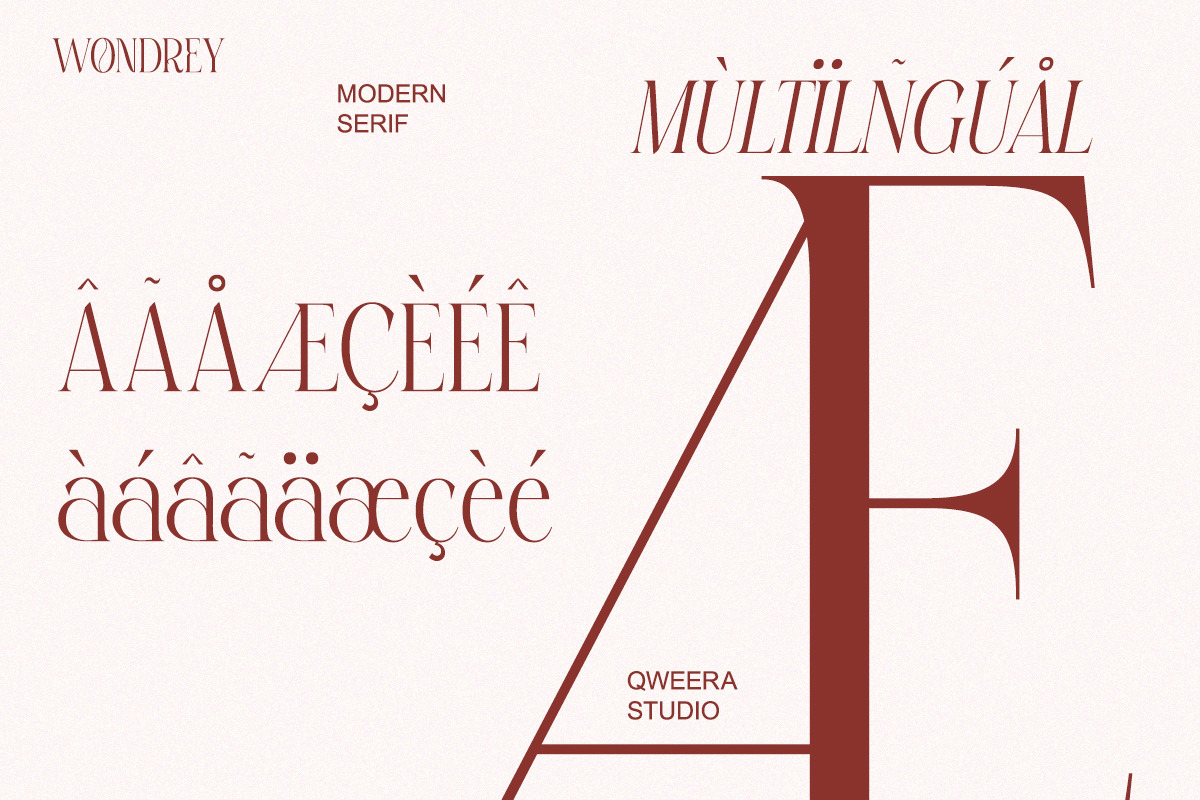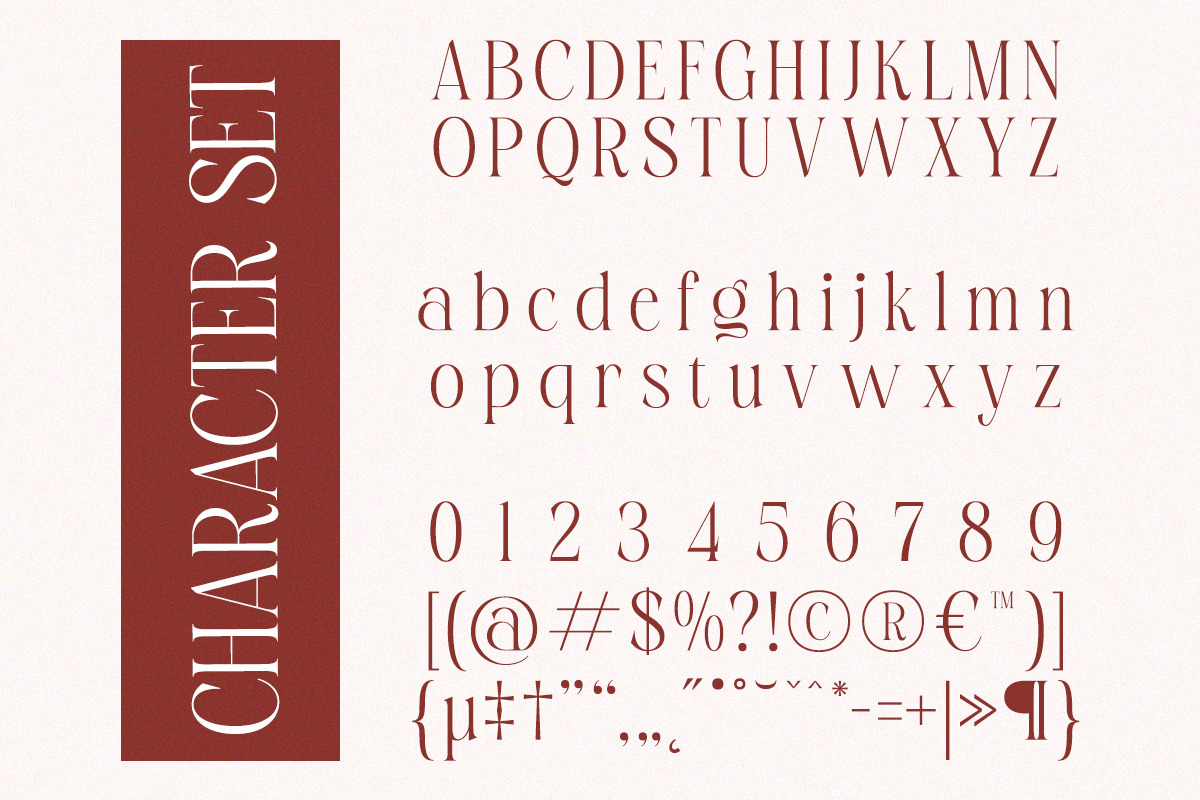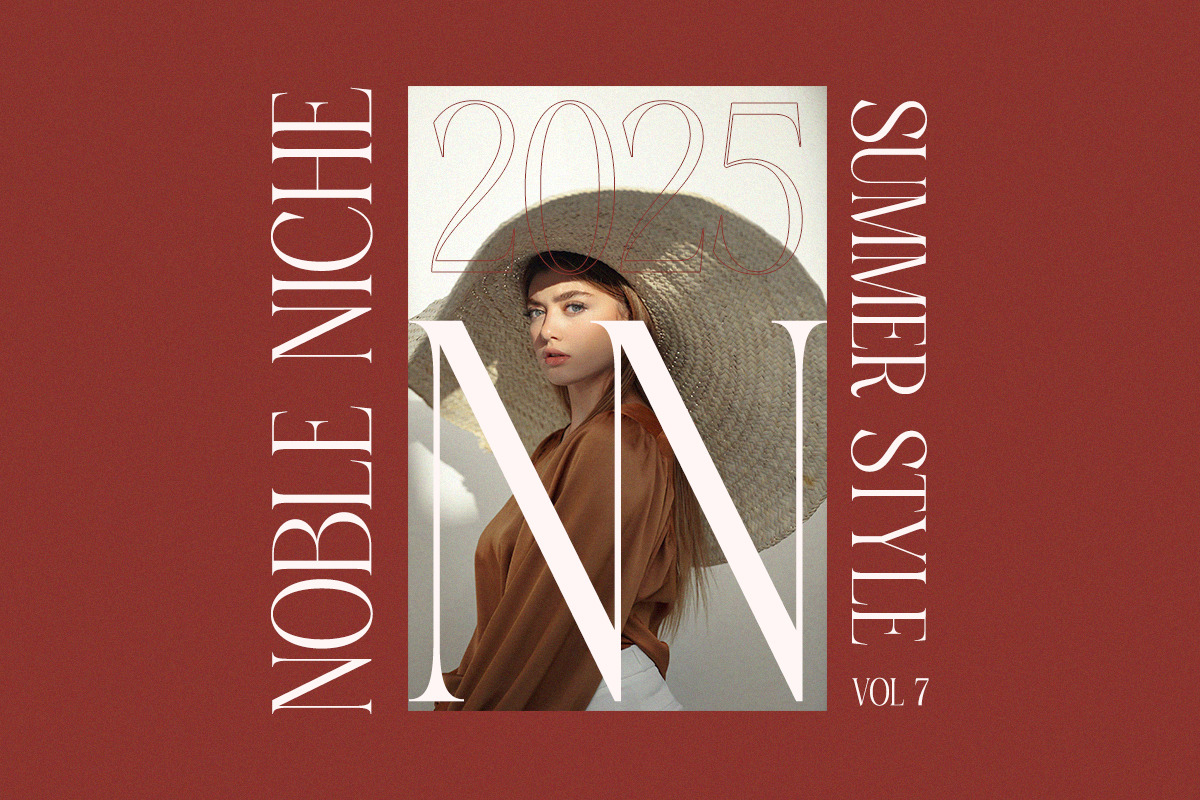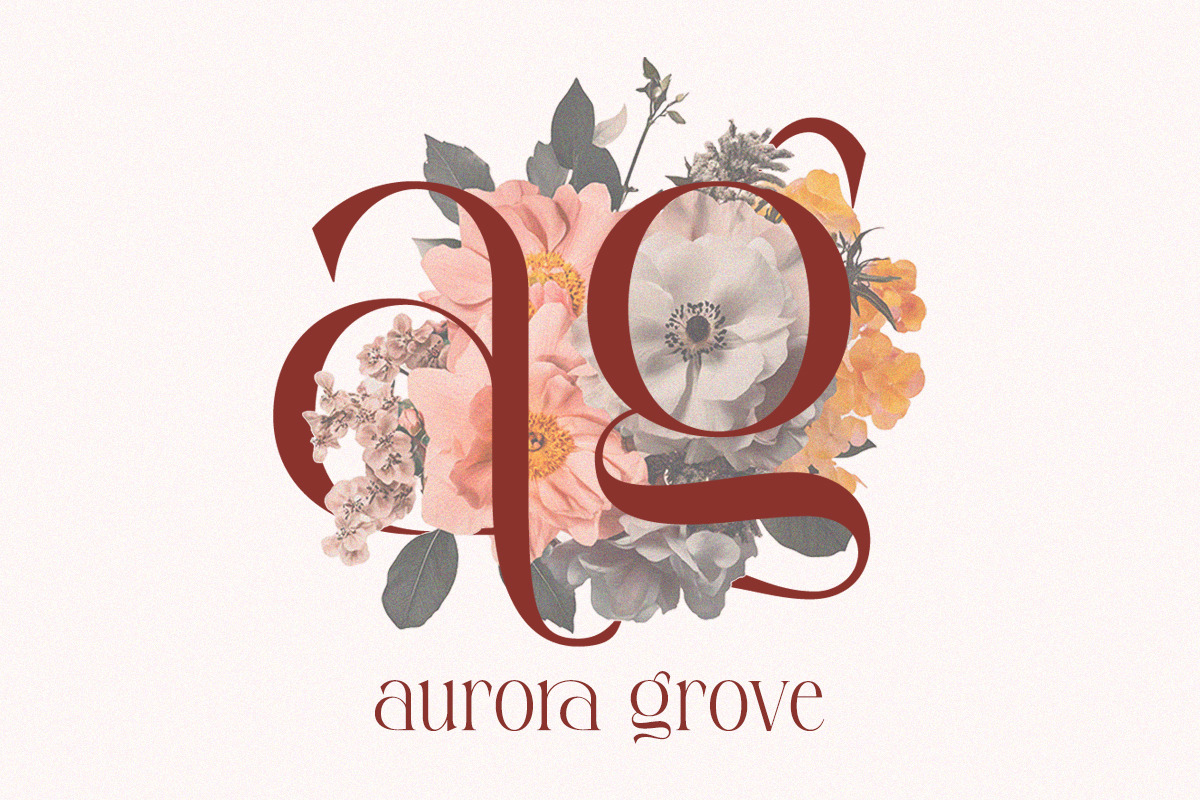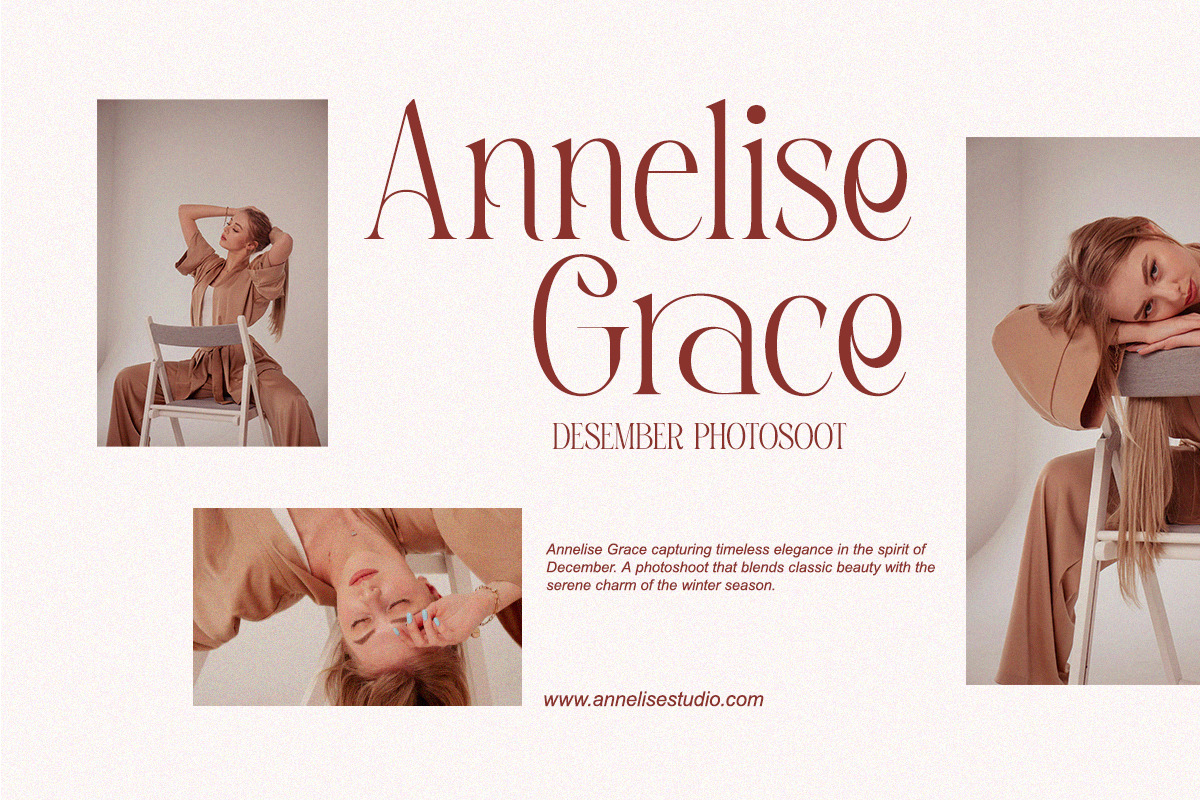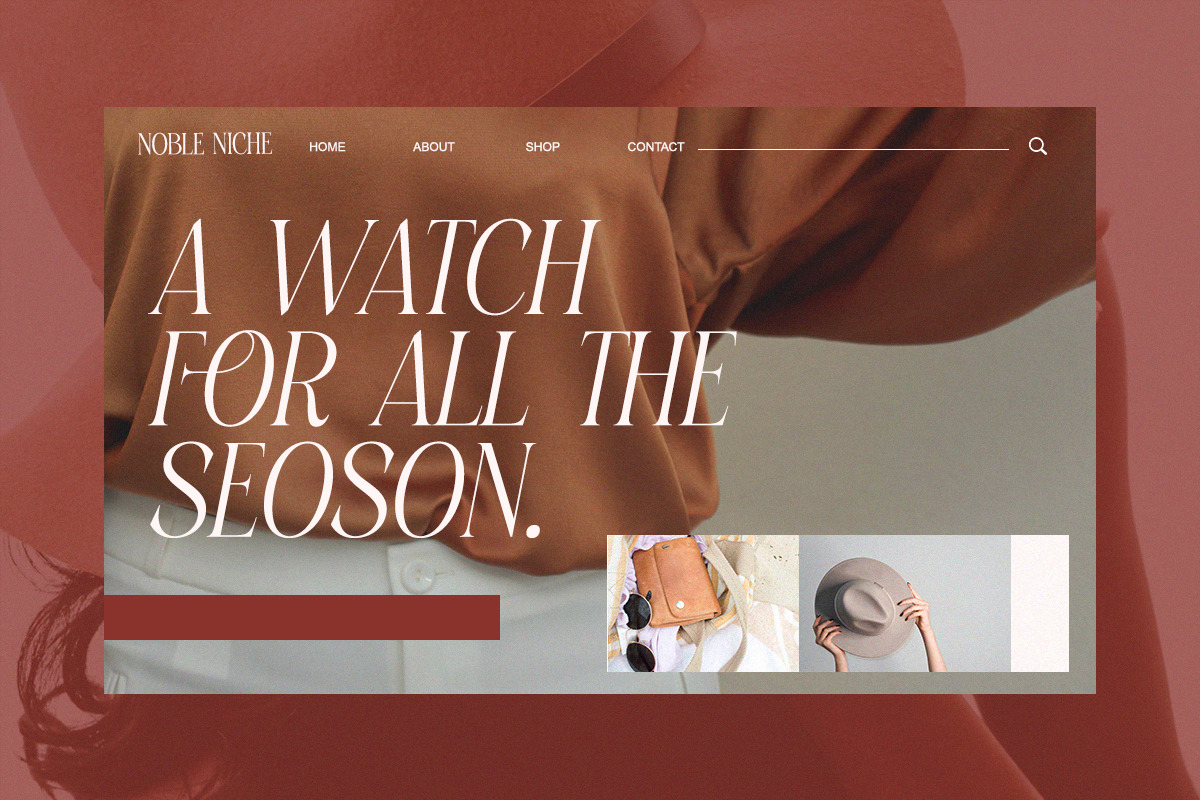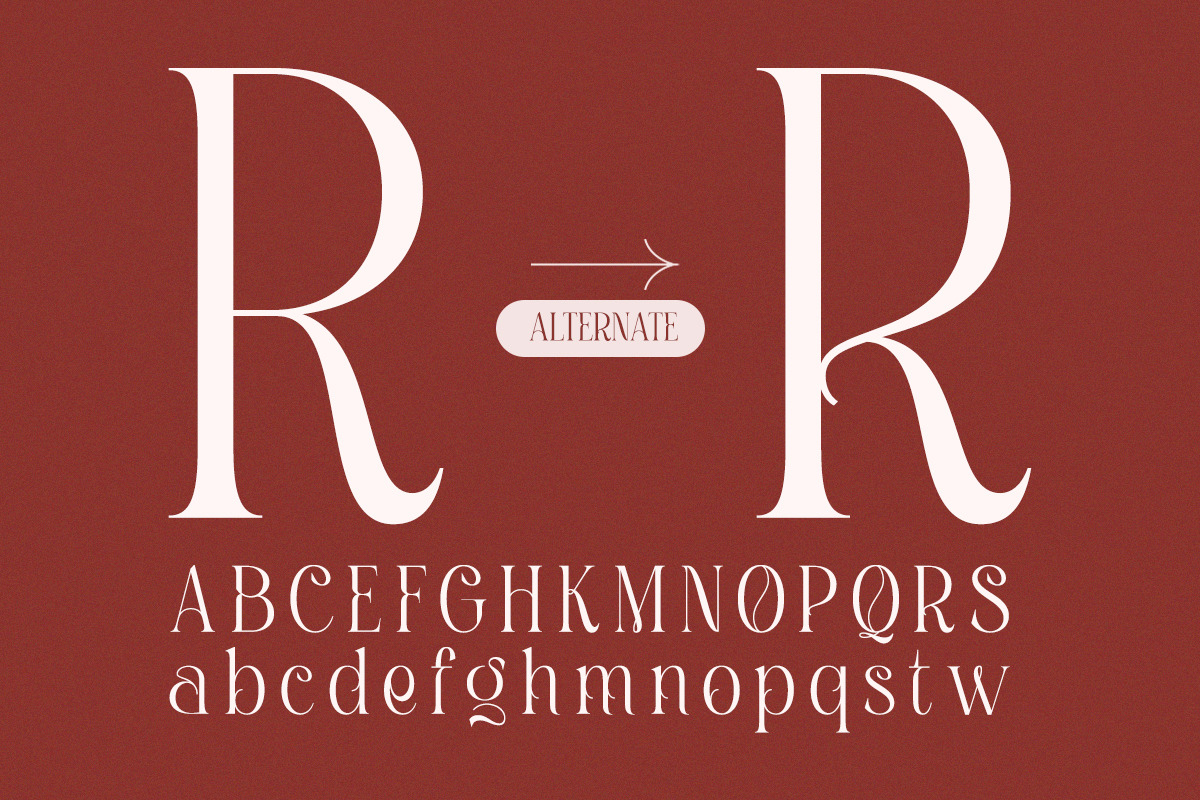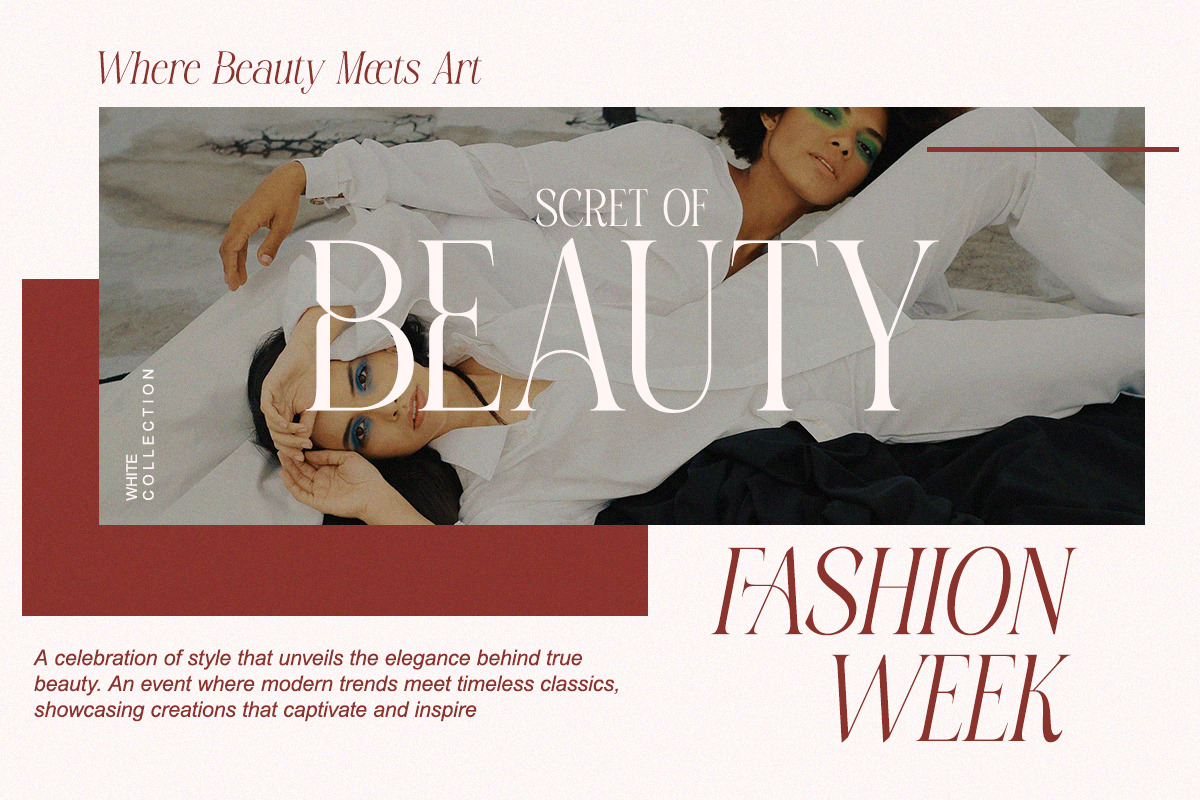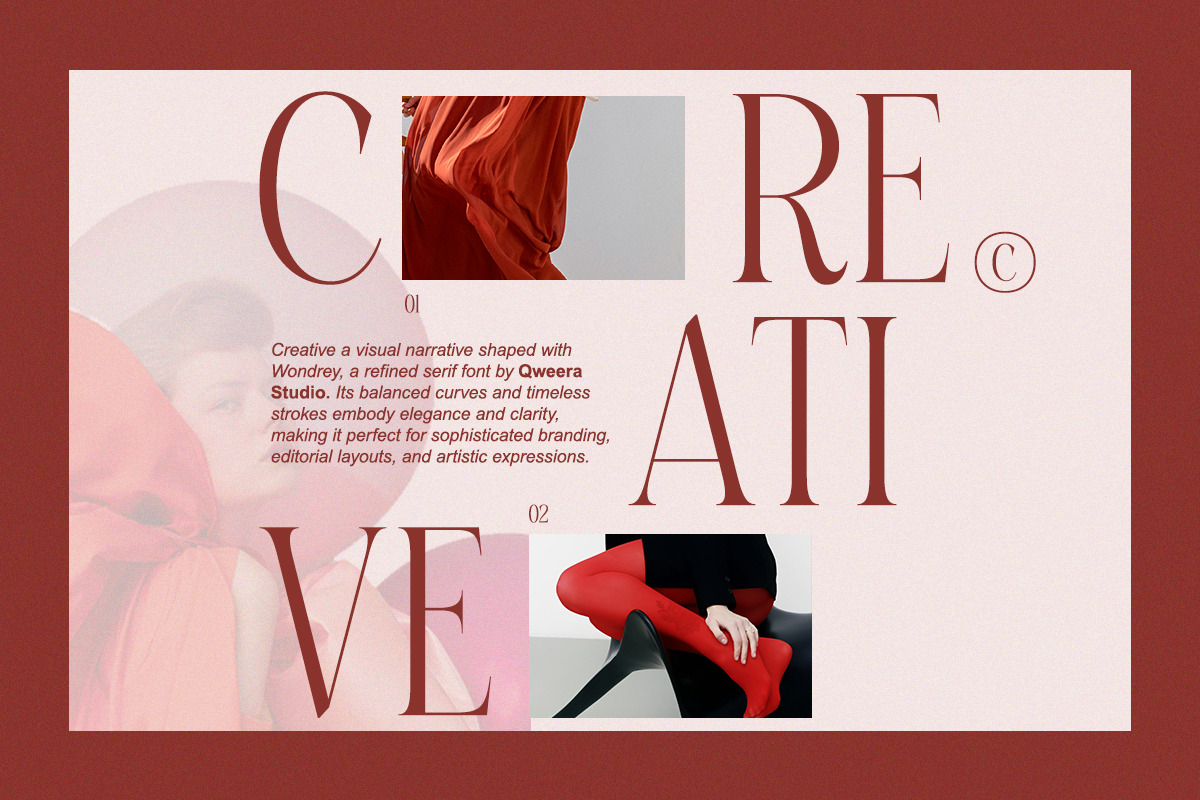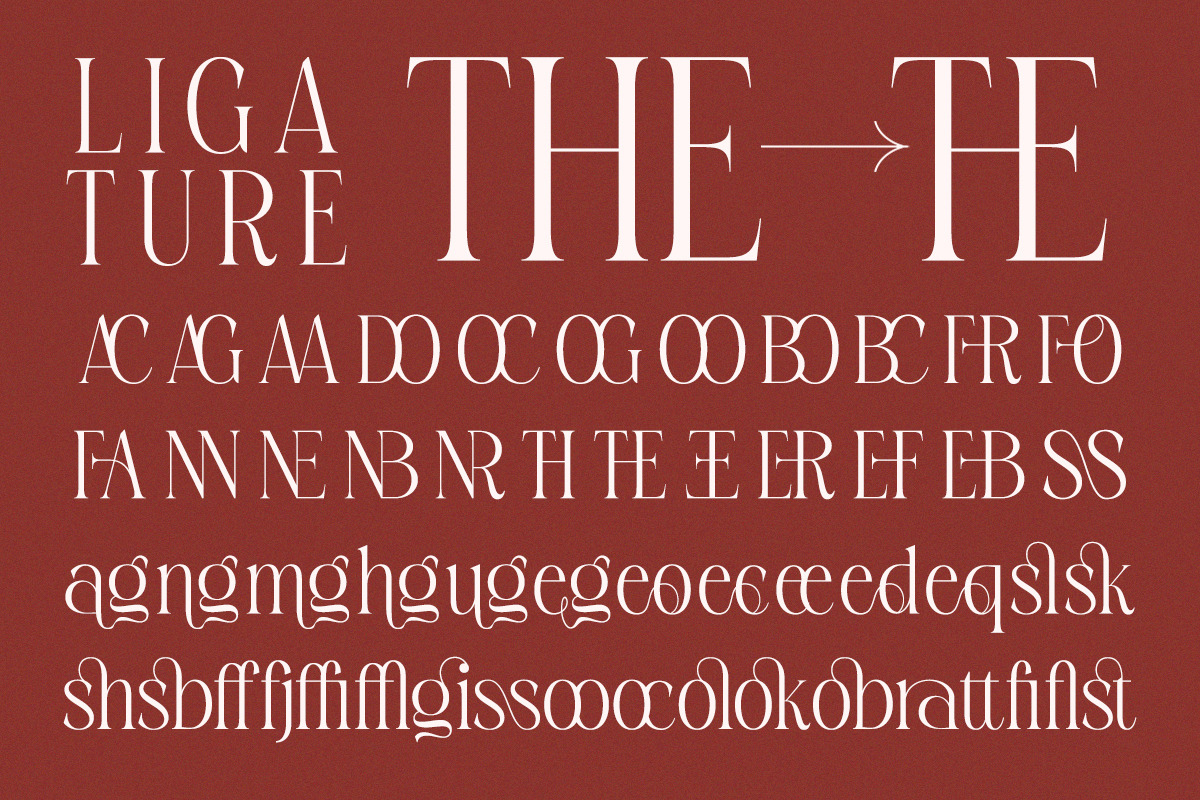
Wondrey - Modern Elegant Branding
Wondrey – Modern Elegant Branding Serif Font
Wondrey is a refined modern serif font crafted to embody sophistication, elegance, and versatility. With its balanced curves, graceful alternates, and stylish ligatures, Wondrey becomes the perfect choice for designers seeking a high-end typeface that blends modernity with timeless class.
This typeface is ideal for luxury branding, fashion editorials, packaging design, web projects, and creative headlines. Its sleek strokes and unique alternates bring personality and distinction to every layout, ensuring your project captures attention with a touch of exclusivity.
Whether you are building a brand identity, crafting elegant invitations, or designing stylish magazine covers, Wondrey elevates your visuals into a polished statement of class.
🎯 Perfect For:
Luxury branding Fashion magazine Editorial design Packaging Wedding invitations Social media templates Posters & flyers Web design projects